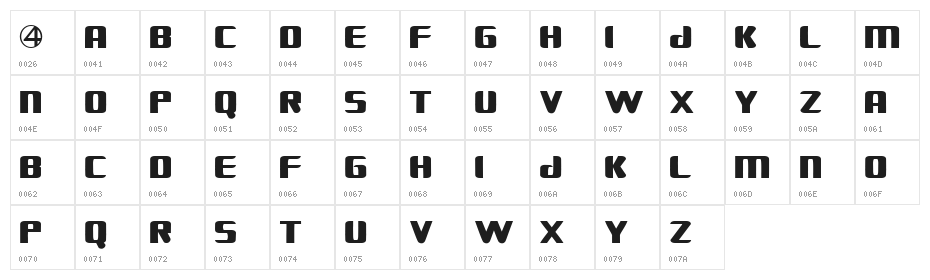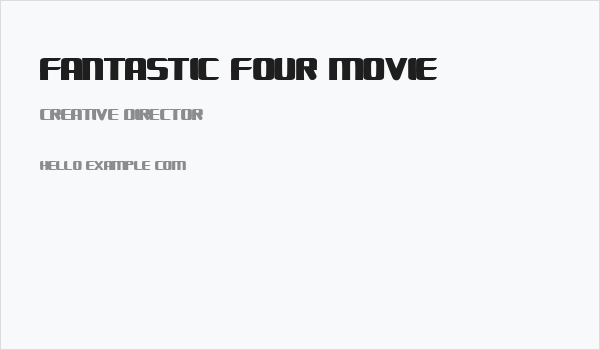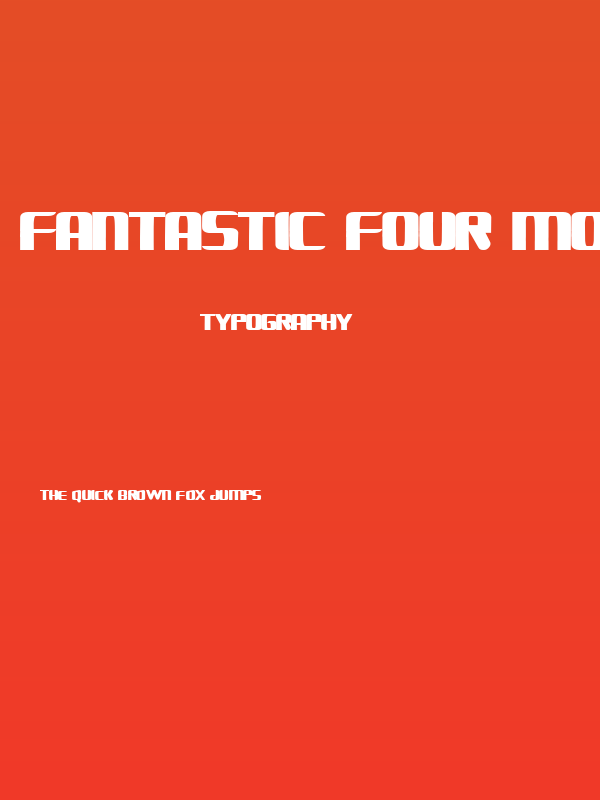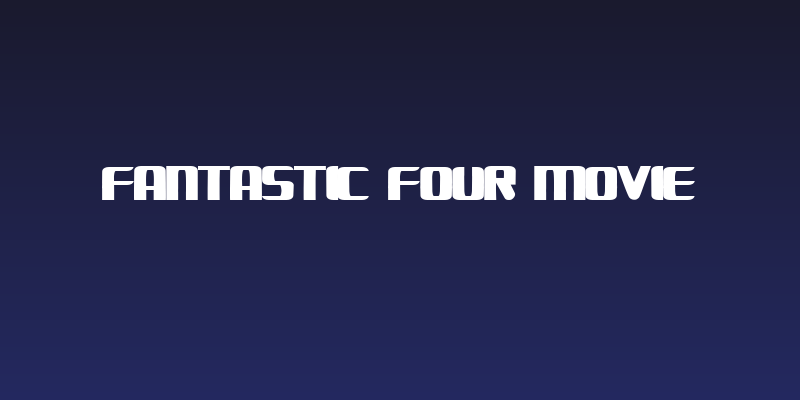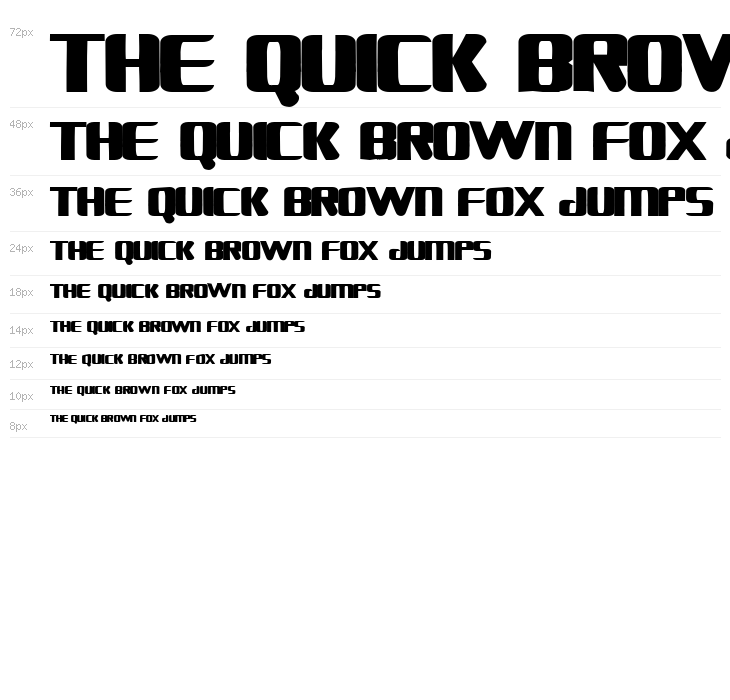
FANTASTIC FOUR MOVIE Font
FANTASTIC FOUR MOVIE Description
This font features a bold, geometric style with a futuristic flair. The characters are designed with a strong, block-like appearance, incorporating sharp angles and smooth curves. The uppercase letters are uniform in height, creating a cohesive and structured look. The absence of lowercase letters suggests a focus on impactful, headline-style text. The font's unique design elements, such as the cut-out sections in certain letters, add a modern and dynamic touch. This typeface is ideal for projects that require a bold and attention-grabbing aesthetic.
Proposed ProjectsIdeal for movie posters, video game titles, sci-fi themed designs, and branding that requires a modern edge.